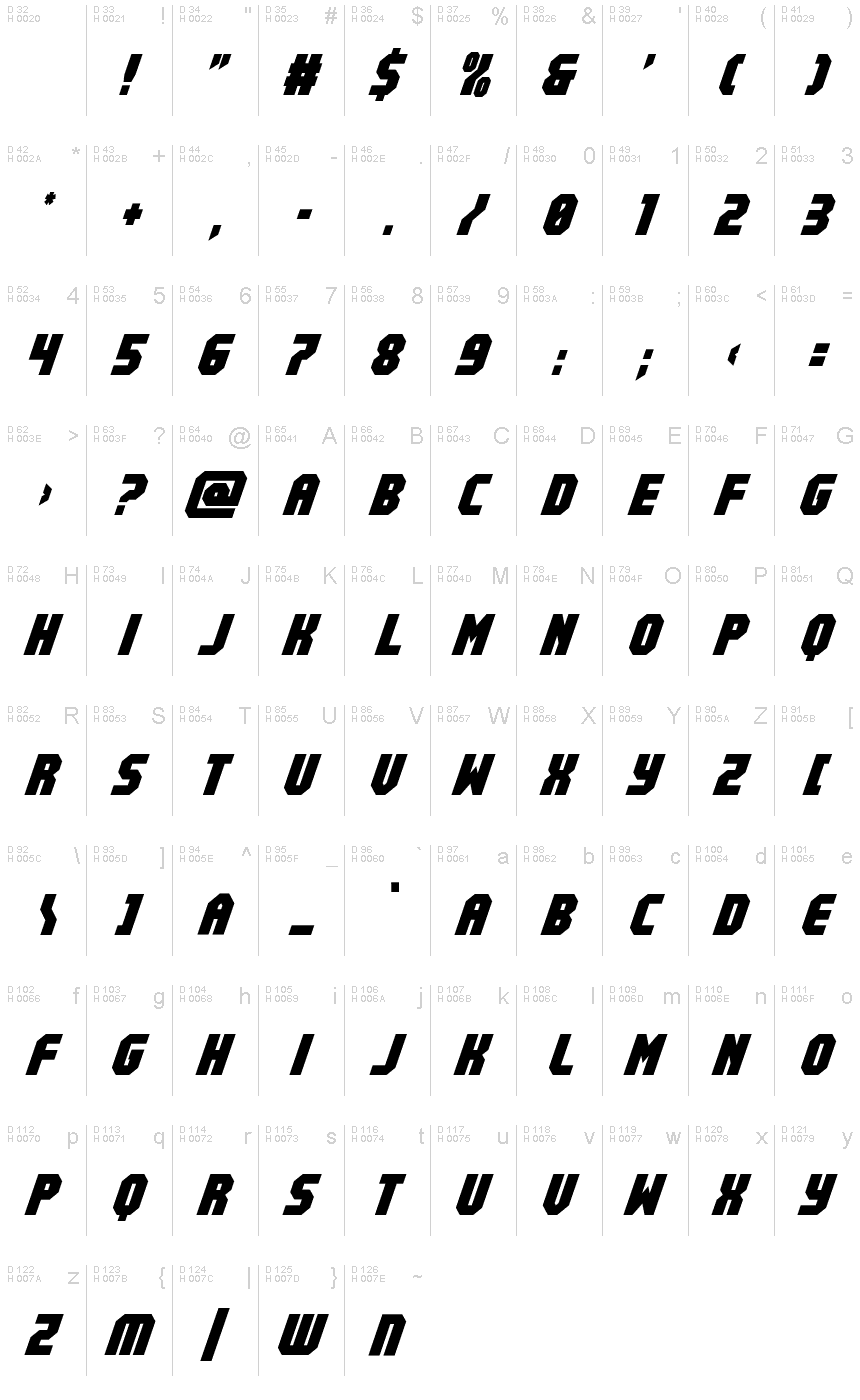
Metal Sentinel Condensed Ital
Introducing Metal Sentinel Condensed Italic, a bold and futuristic display font from the talented designer Daniel Zadorozny. With its condensed style and techno flair, this font is perfect for projects that demand attention and make a statement. From cutting-edge tech companies to sci-fi movie posters, Metal Sentinel Condensed Ital adds a touch of modernity to any design. Its strong lines and unique angles create a sense of power and authority, making it ideal for logos, headlines, and advertising campaigns. Embrace the future with Metal Sentinel Condensed Italic – the font that stands out from the crowd.